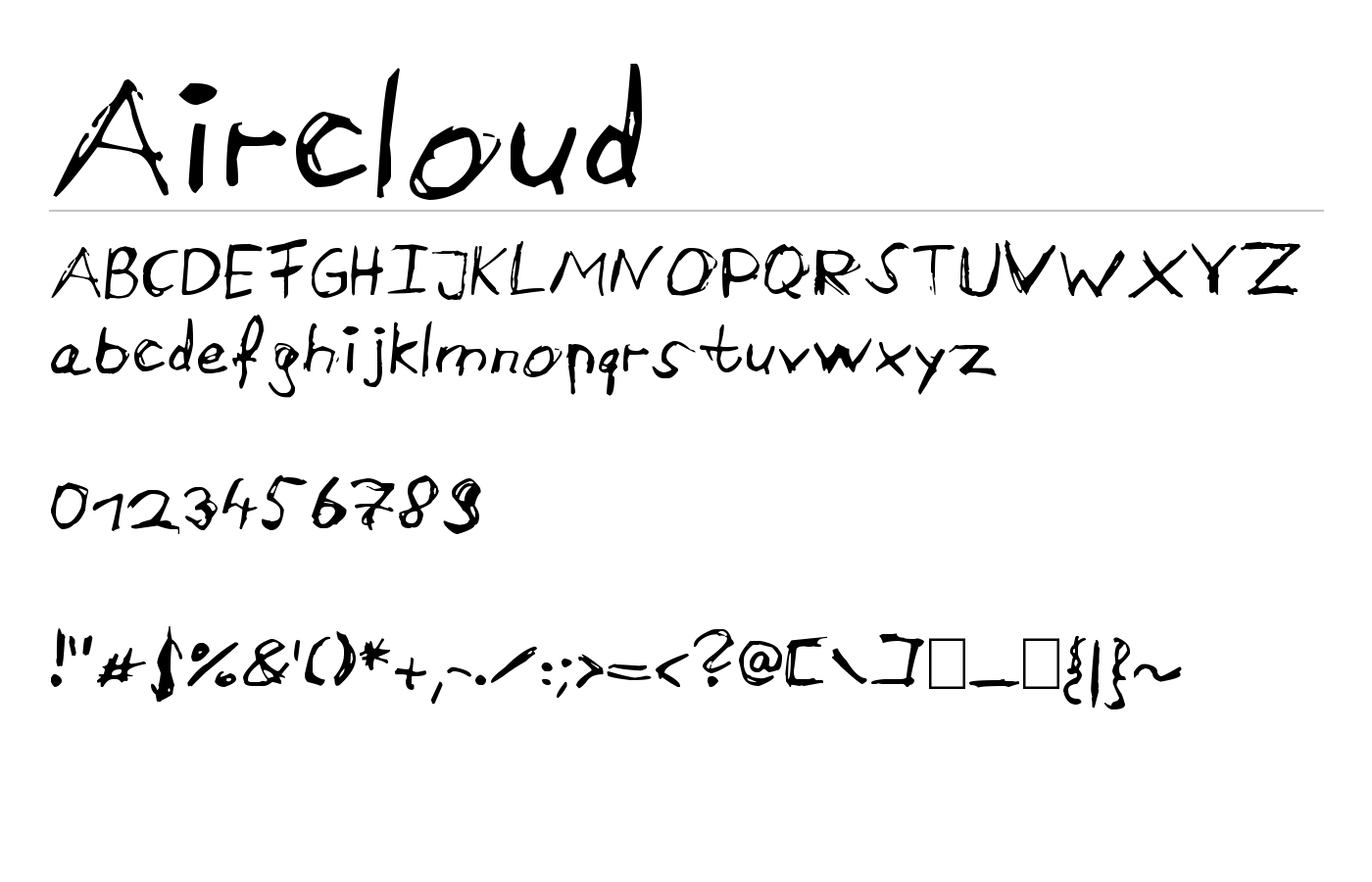
Aircloud is a distinctive handwritten font that features irregular, brush-like strokes with a rough texture, conveying a casual and artistic vibe. Its uneven lines and unique character shapes create a playful and expressive style, making it ideal for creative projects, informal branding, and personal designs seeking a hand-crafted look. Aircloud works best in designs that benefit from a spontaneous, approachable feel, such as posters, invitations, and children’s materials.
Aircloud Font